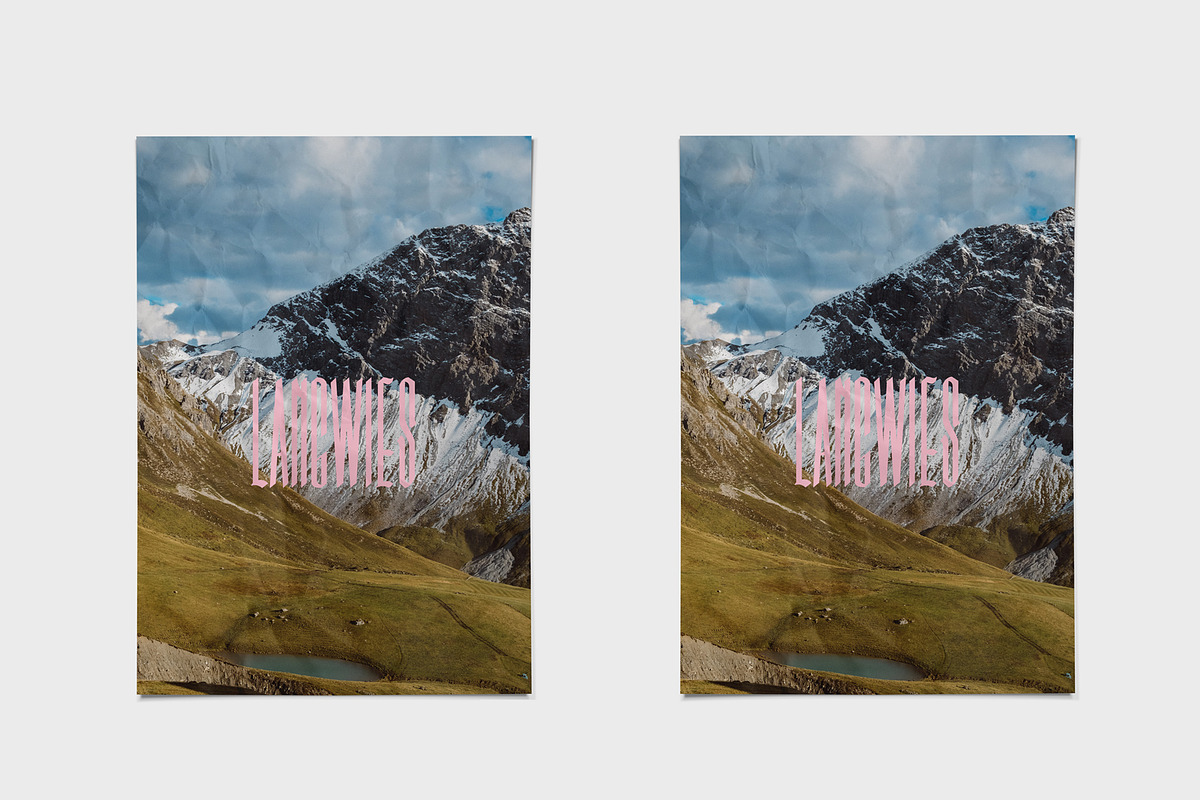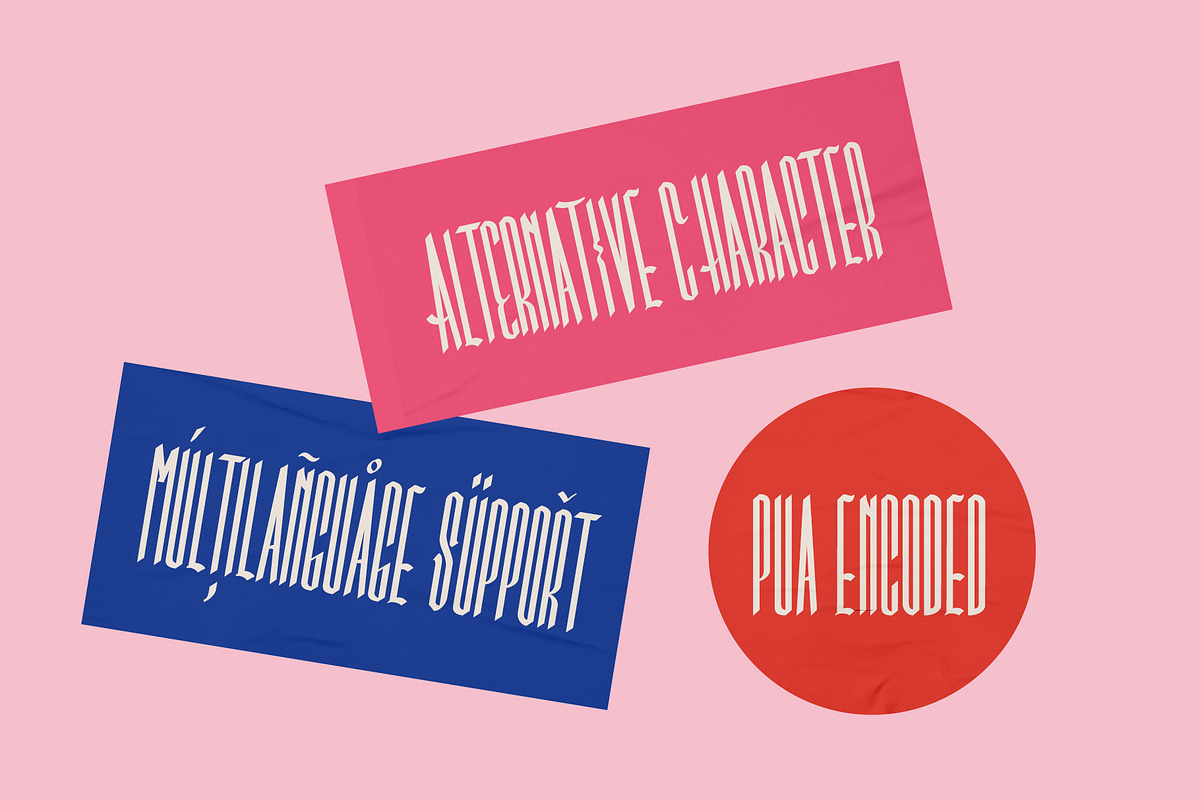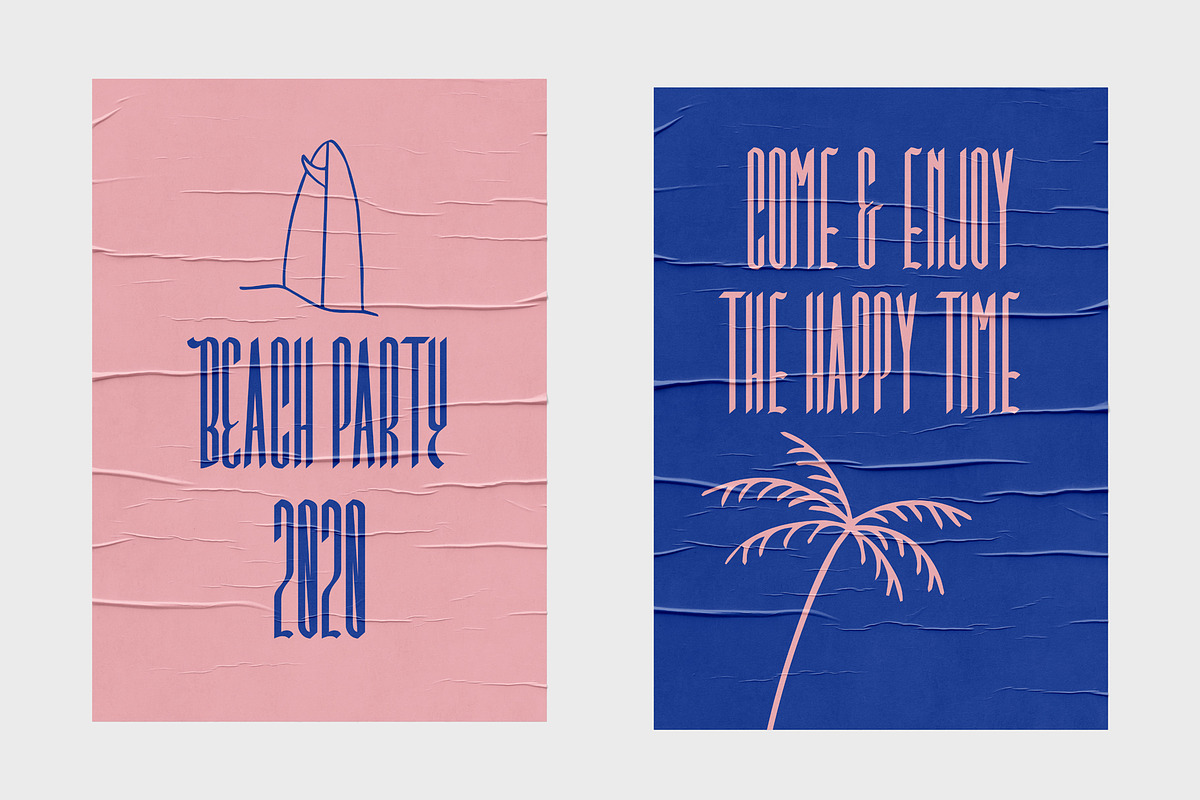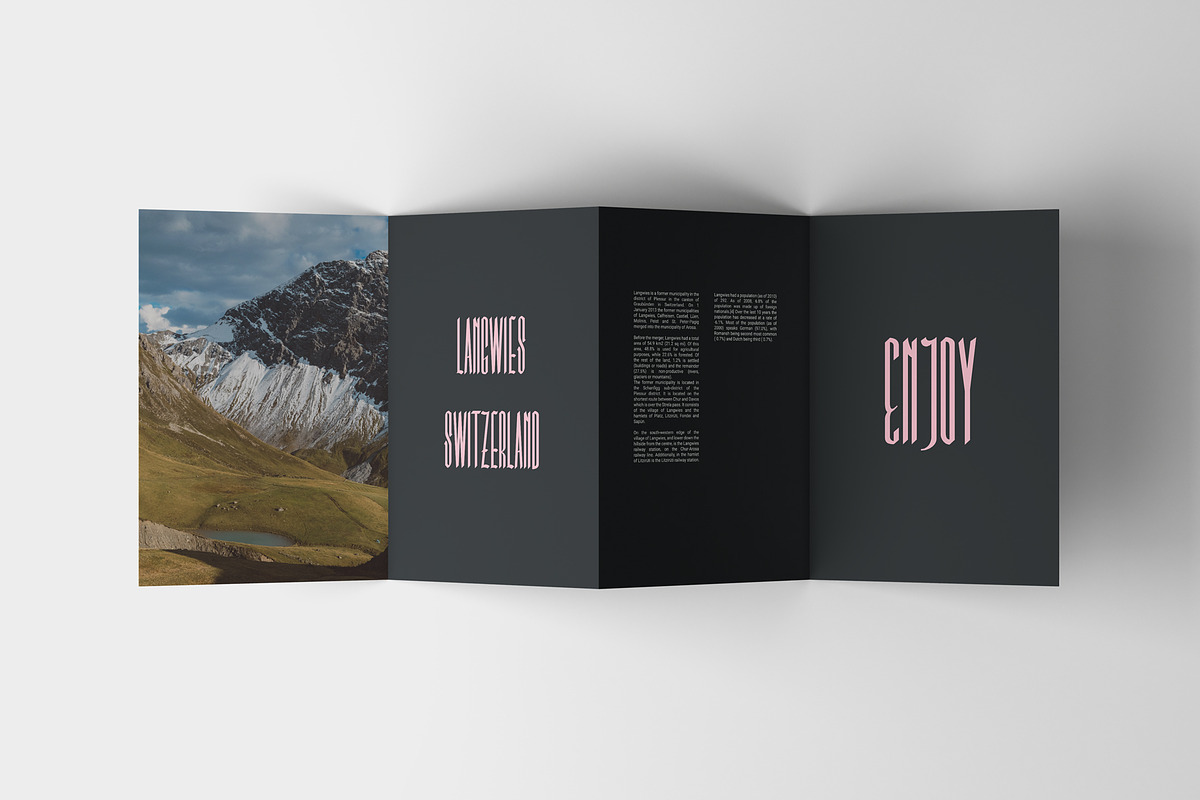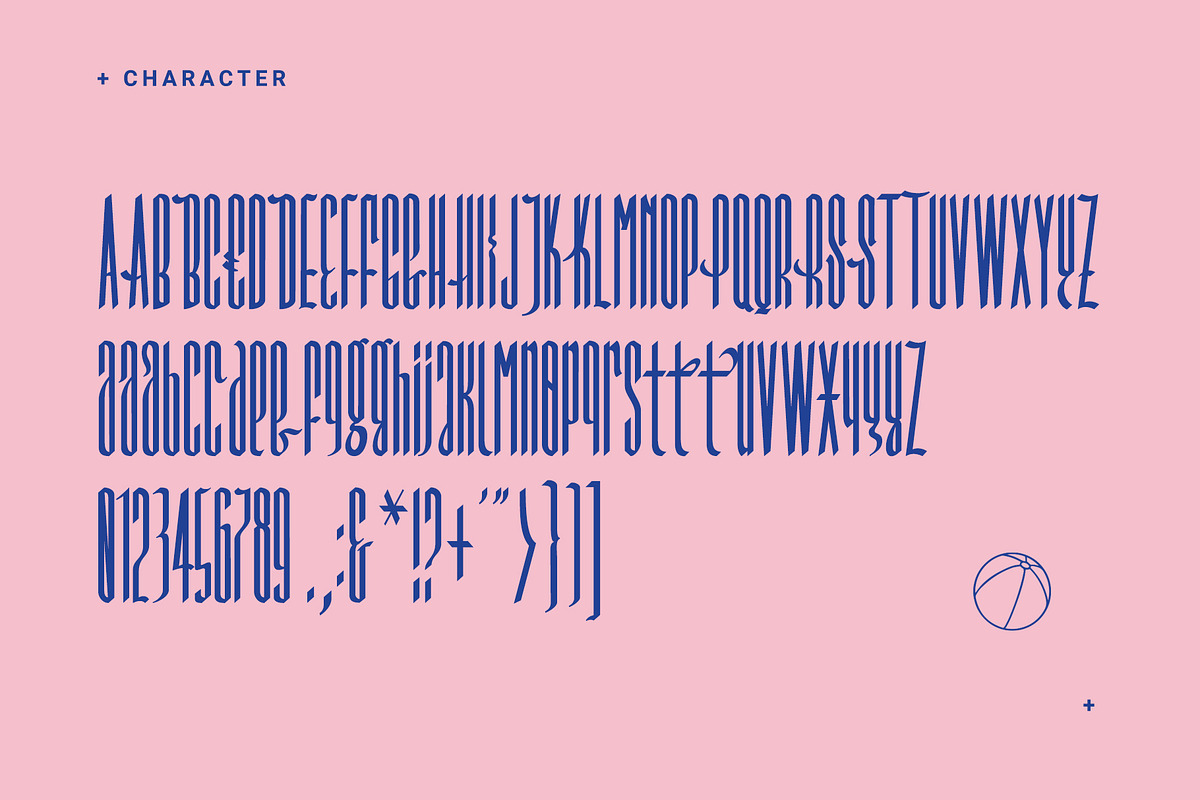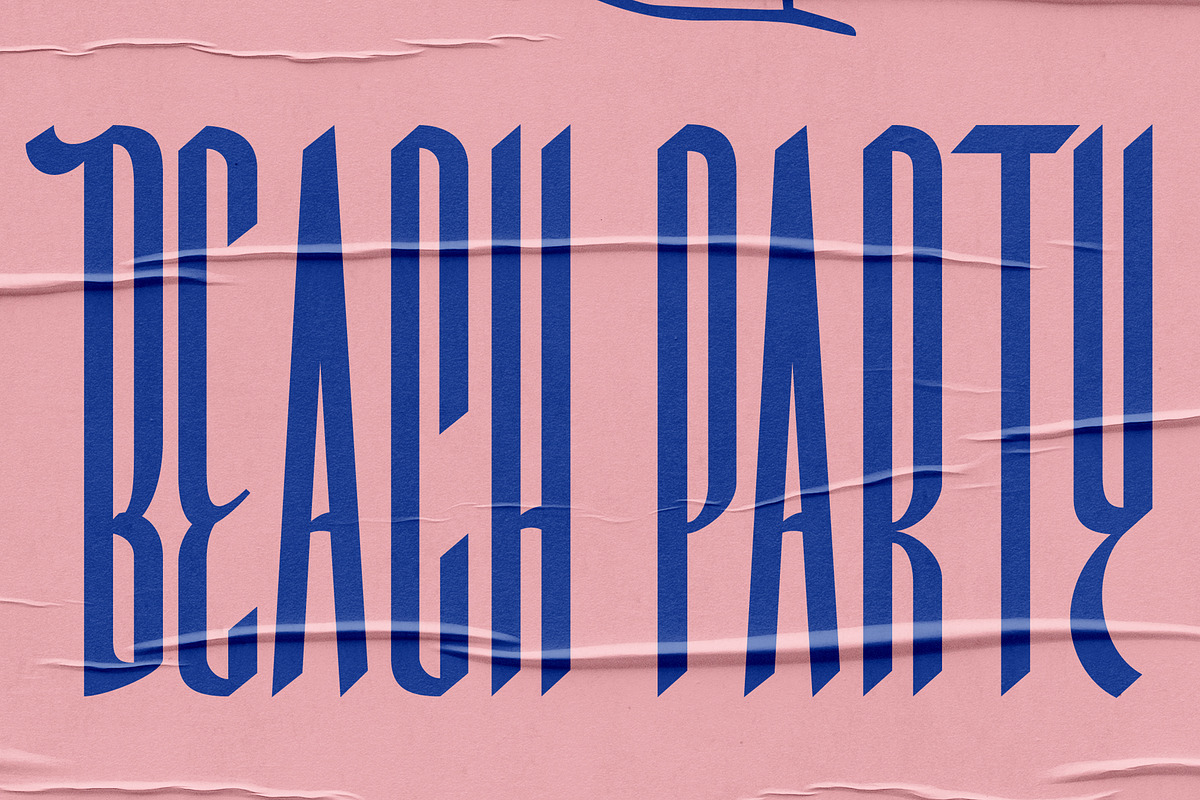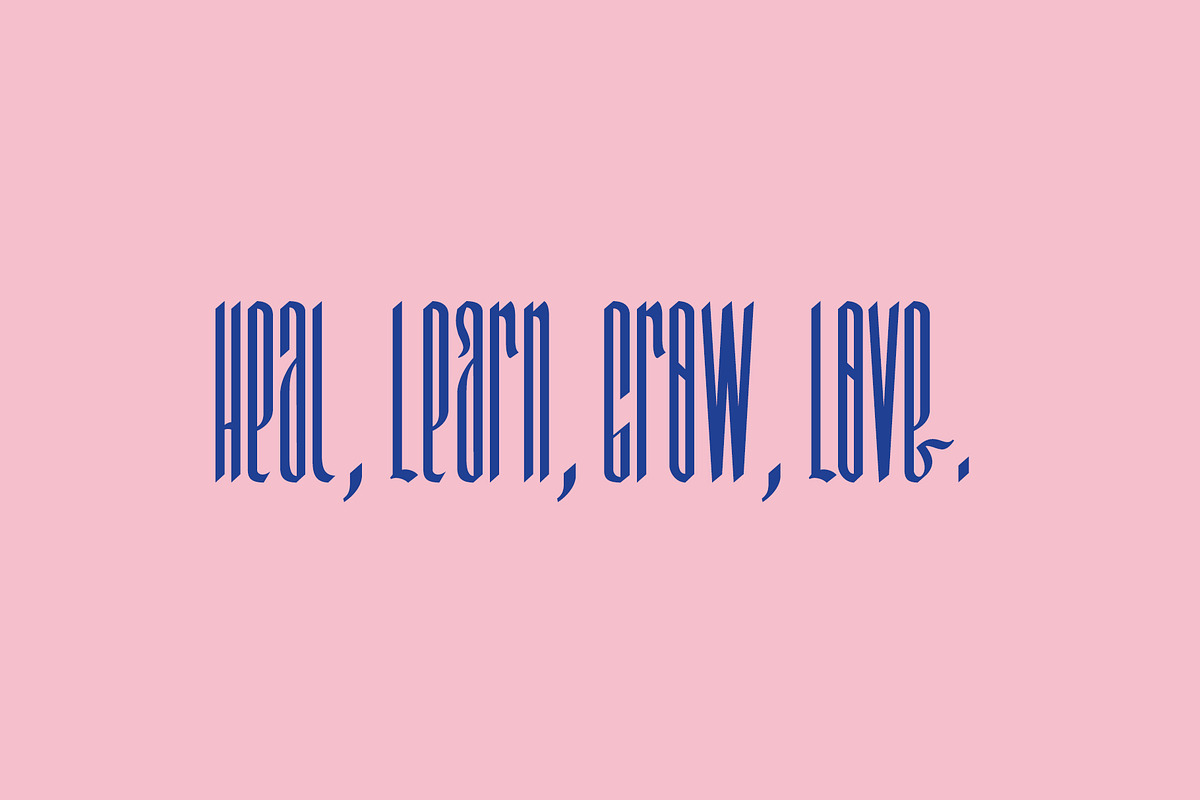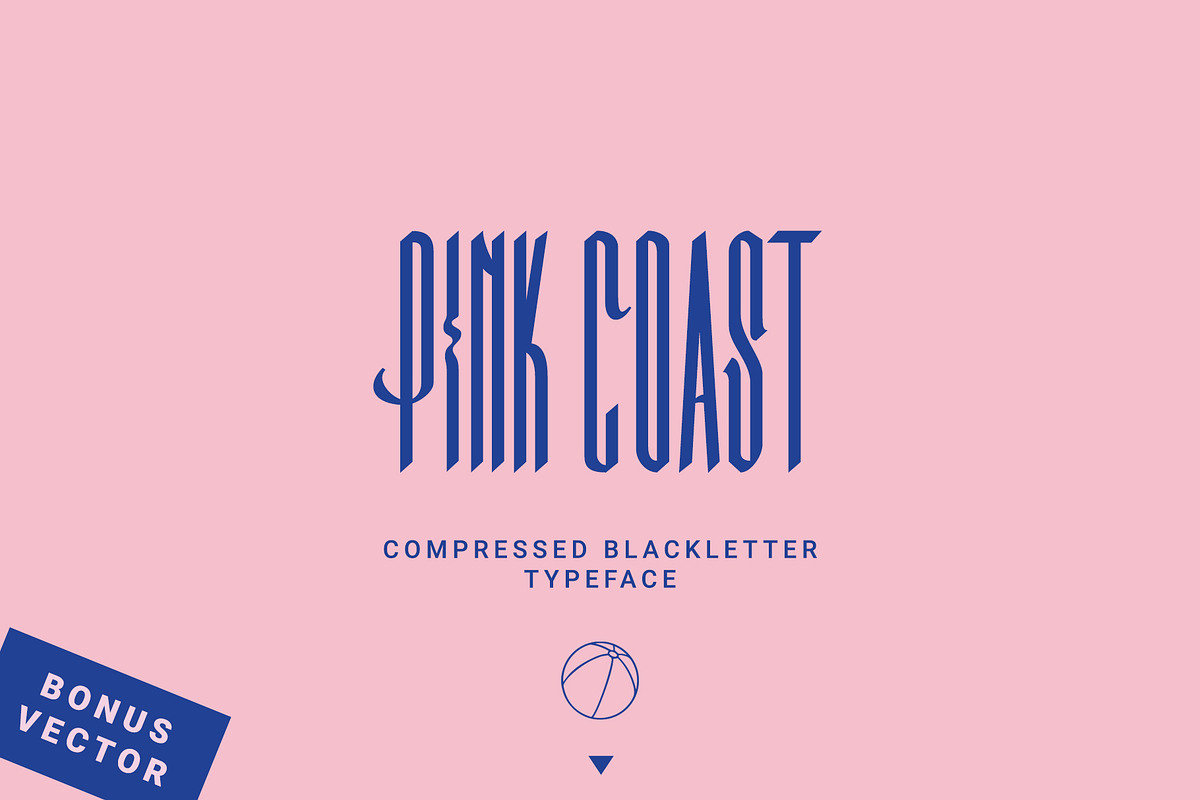
Pink Coast Typefaces
Pink coast is a modern, minimalist, and elegant blackletter typefaces. This font is designed to be sleek to look minimalist and more modern, besides that there are alternative characters that make the font look more attractive.
This font is perfect for use as poster designs, branding, logos, apparel (t-shirts, jackets, etc.), cards, tattoo, or other design needs.
Alternative character
multi language support